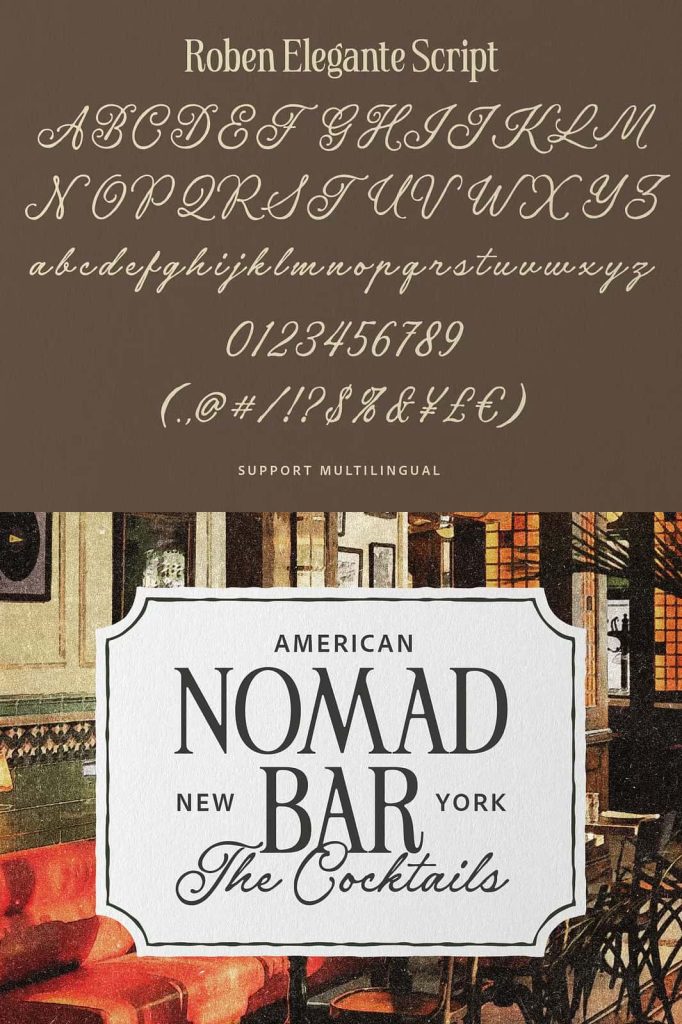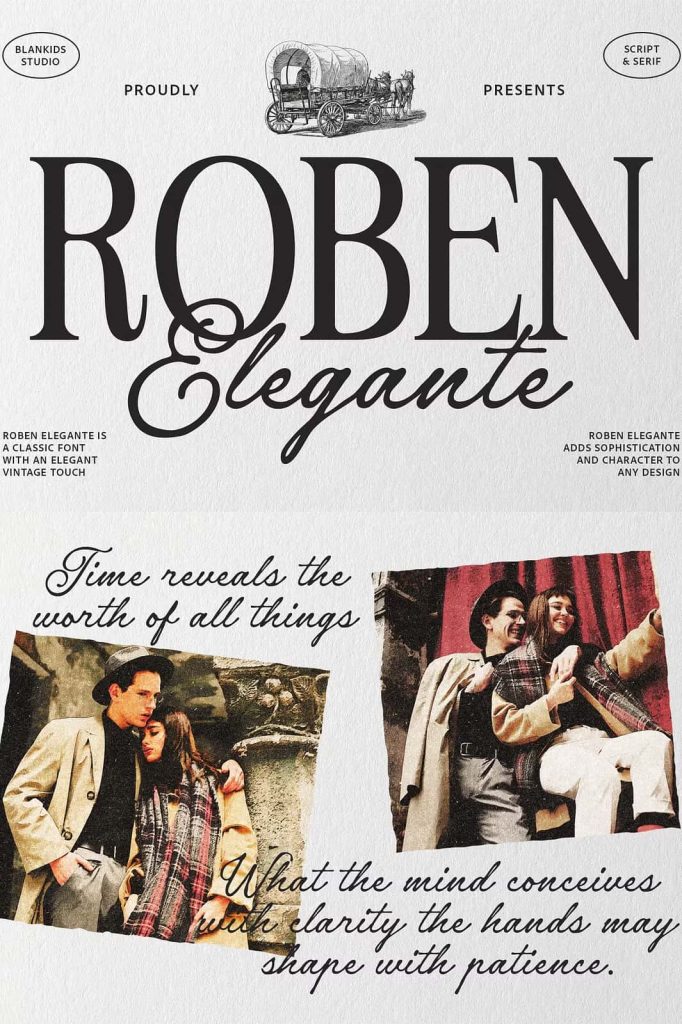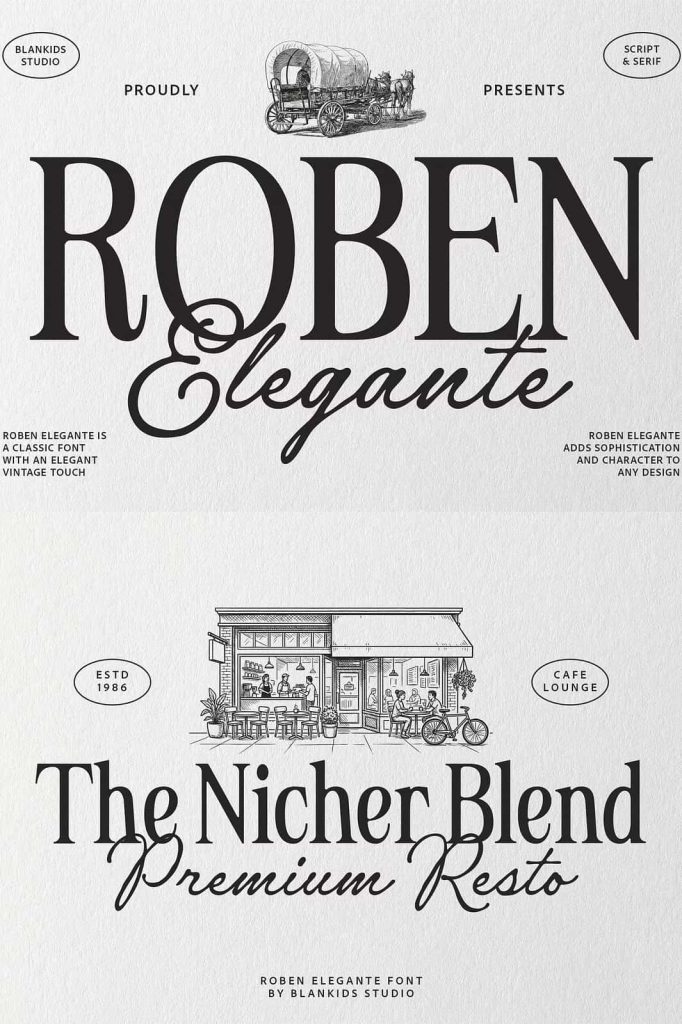
Roben Elegante Classic Serif & Script Typeface – A Sophisticated Font Duo for Luxury Design
Roben Elegante Classic Serif & Script Typeface is a beautifully crafted font duo that combines the strength of a bold classic serif with the graceful elegance of a handwritten script. Inspired by timeless European typography and vintage editorial design, this typeface offers the perfect balance between tradition and modern sophistication. Whether you’re designing premium branding, elegant invitations, luxury packaging, or editorial publications, Roben Elegante helps transform ordinary text into refined visual communication.
By pairing two complementary styles within one font family, Roben Elegante provides designers with exceptional creative flexibility. The bold serif creates structure, authority, and readability, while the flowing script introduces warmth, personality, and artistic charm. Together, they create harmonious typography that feels luxurious, timeless, and memorable.
A Classic Serif Inspired by European Typography
The serif component of Roben Elegante draws inspiration from traditional European printing and editorial publishing. Featuring balanced proportions, elegant contrast, and refined letterforms, the serif delivers a professional appearance that works beautifully across both modern and classic design styles.
Its bold construction gives headlines and brand names a commanding presence while maintaining excellent readability. Every character has been carefully designed to communicate confidence, elegance, and quality, making it suitable for projects that require premium typography.
An Elegant Handwritten Script with Natural Flow
Complementing the structured serif is a sophisticated handwritten script that adds softness and personality to every composition. The script features graceful curves and fluid connections that recreate the beauty of handwritten signatures and luxury calligraphy without becoming overly decorative.
This natural handwritten style introduces contrast that helps create visually engaging layouts. Whether used for names, signatures, taglines, or highlighted phrases, the script adds a refined human touch that enhances the overall design.
The Perfect Font Duo for Creative Professionals
One of the greatest strengths of Roben Elegante is the seamless relationship between its serif and script styles. Designers can combine both fonts to establish hierarchy, emphasize important information, and create elegant visual compositions without searching for matching typefaces.
The bold serif serves as a stable foundation, while the script provides stylish accents that elevate logos, headlines, invitations, and branding materials. This combination saves time while ensuring consistent typography throughout every project.
Ideal Applications
- Luxury branding
- Logo design
- Business identity systems
- Wedding invitations
- Editorial magazines
- Book covers
- Fashion branding
- Perfume packaging
- Jewelry branding
- Cosmetic product labels
- Restaurant menus
- Business cards
- Website typography
- Marketing materials
Create Premium Branding with Timeless Typography
Roben Elegante is an excellent choice for businesses seeking a refined and memorable visual identity. The combination of classic serif typography and elegant handwritten script communicates professionalism while maintaining a welcoming and sophisticated personality.
Luxury fashion labels, boutique hotels, beauty brands, interior designers, photographers, floral businesses, cafés, wedding planners, and lifestyle companies can all benefit from the timeless appearance of this versatile font duo.
Perfect for Editorial and Publishing Projects
Inspired by vintage editorial design, Roben Elegante performs exceptionally well in magazines, books, catalogs, brochures, and premium publications. The serif creates strong editorial headlines and body text, while the script adds elegant highlights that enhance page layouts without distracting readers.
This balance between readability and decorative beauty makes the font particularly effective for publications that value sophisticated typography and polished presentation.
Designed for Print and Digital Media
Roben Elegante adapts beautifully to both traditional print and modern digital environments. In print, it enhances packaging, invitations, brochures, signage, menus, and promotional materials with premium typography. Online, it creates visually striking websites, social media graphics, digital advertisements, email campaigns, and branding presentations.
The font maintains clarity across different screen sizes and print formats, allowing designers to build consistent visual identities across multiple platforms.
Features
- Elegant font duo featuring serif and script styles
- Classic European-inspired serif letterforms
- Natural handwritten script typography
- Beautiful balance between structure and elegance
If you are looking for a premium font duo that combines classic refinement with expressive handwritten beauty, Roben Elegante Classic Serif & Script Typeface is an outstanding choice. Inspired by European typography and vintage editorial design, this versatile typeface helps create memorable branding, elegant invitations, sophisticated publications, and luxury packaging with ease. From fashion labels and cosmetic brands to wedding stationery and editorial layouts, Roben Elegante delivers timeless style, professional quality, and lasting visual impact for every creative project.